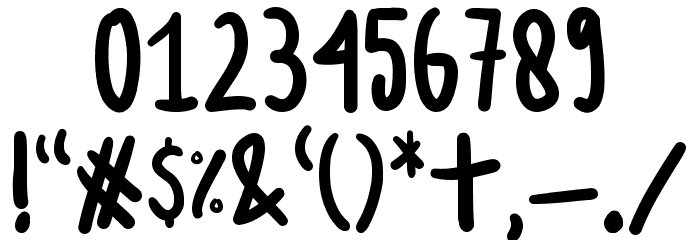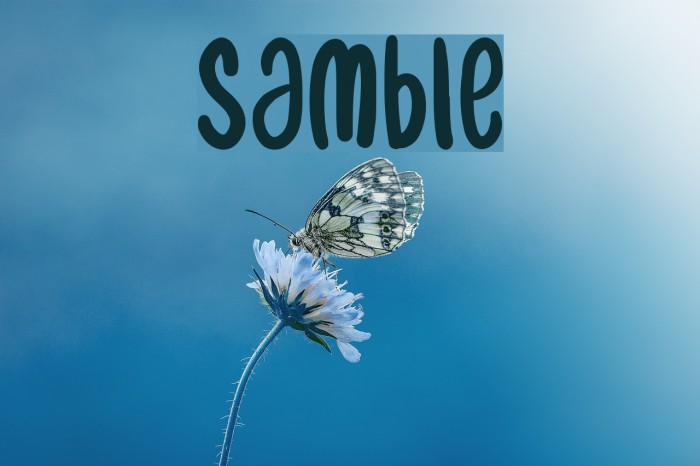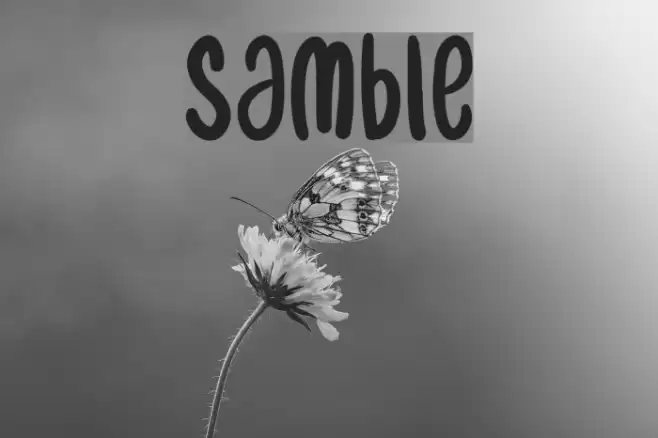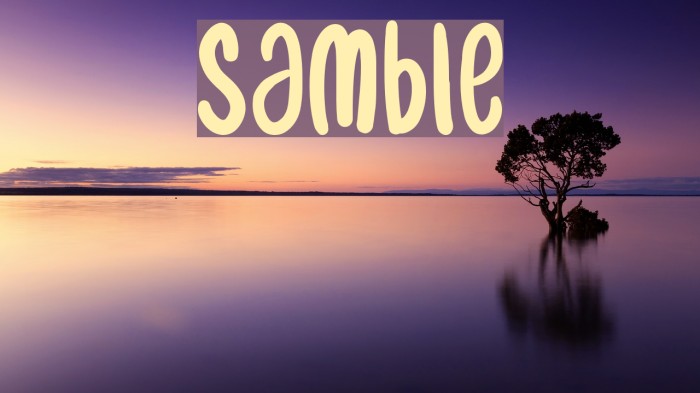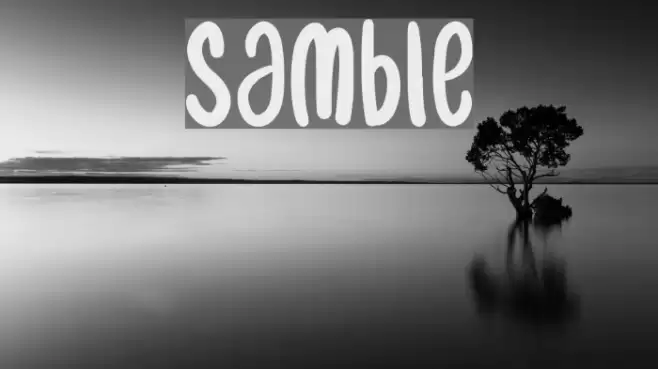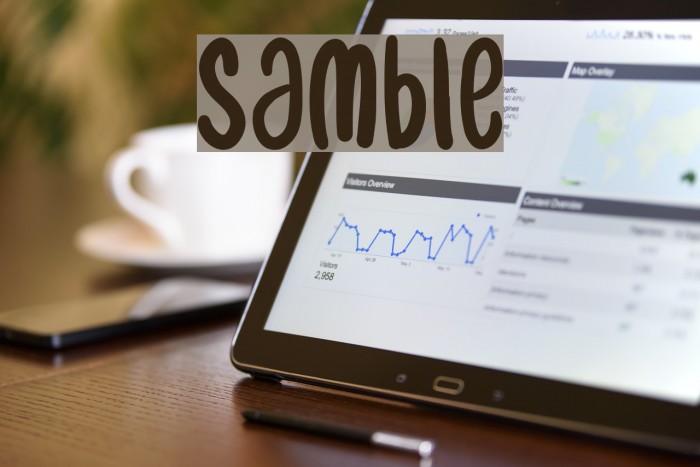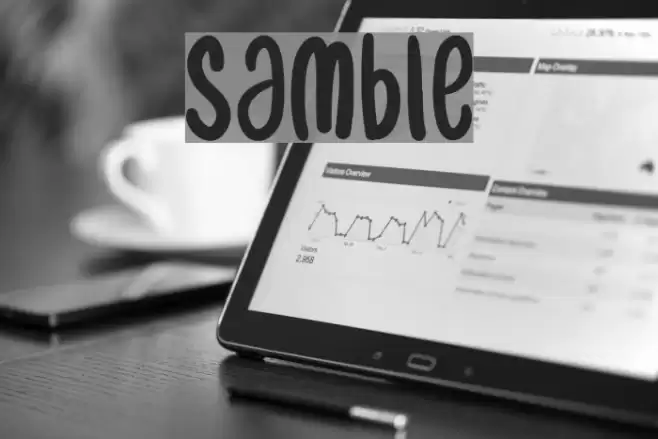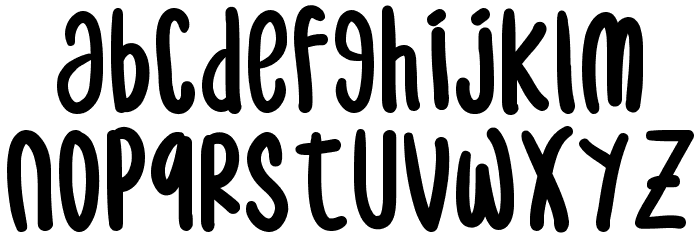
samble Font
samble Description
This font features a playful and bold handwritten style, characterized by its rounded and slightly irregular letterforms. The uppercase and lowercase letters maintain a consistent thickness, giving it a cohesive appearance. The numbers and special characters follow the same playful aesthetic, making it suitable for informal and creative projects. The overall look is friendly and approachable, with a touch of whimsy that adds personality to any design.
| Proposed Projects | Ideal for children's books, playful branding, greeting cards, and casual invitations. |